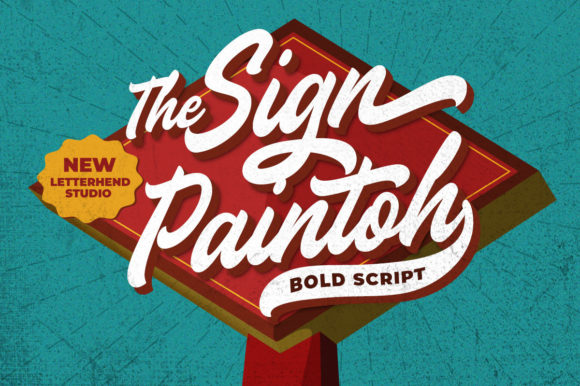
Dive into the world of vintage charm with The Sign Paintoh Font - a captivating script typeface that oozes retro elegance. Designed by the talented letterhend, this font transports you back in time, evoking the nostalgic allure of classic signage and handwritten notes. Its bold strokes and confident lines command attention, making it the perfect choice for headlines, logotypes, and branding projects.
With The Sign Paintoh Font, you'll unleash a wave of creativity that will leave your audience spellbound. Its timeless appeal adds a touch of authenticity and charm to any design, whether it's a poster, a website, or a social media campaign. Imagine your words dancing across the screen, carrying a message of heritage and individuality.
More than just a font, The Sign Paintoh Font is an artistic journey that invites you to explore the depths of retro aesthetics. Its carefully crafted characters exude personality and character, capturing the essence of yesteryear. Embrace the beauty of the past and fuse it with the vibrancy of the present, creating designs that resonate with audiences of all ages.
Don't settle for ordinary fonts that blend into the background. Choose The Sign Paintoh Font and let your creativity soar. Its bold presence will command attention, while its vintage charm will leave a lasting impression. Step into the spotlight and make a statement that will be remembered for years to come.